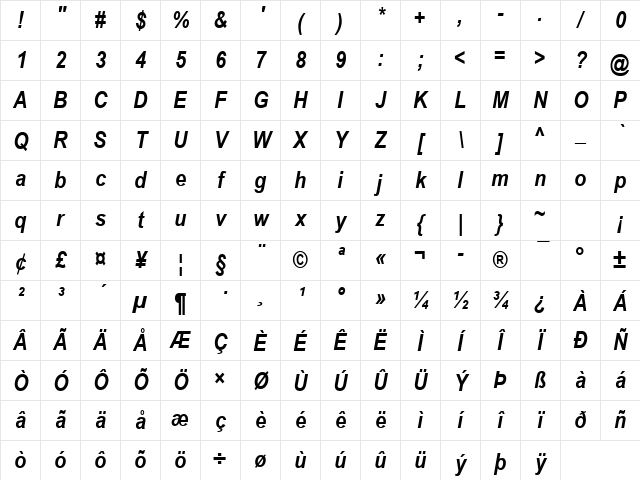
Complete Arial Narrow Bold Italic glyph index. Displaying only characters natively supported by Arial Narrow Bold Italic font.
Arial Narrow is a composed and adaptable typeface that performs quietly and consistently across a wide range of design contexts. The slanted form adds forward momentum and visual energy. Its bold stroke weight gives it real presence on the page. Its narrow stance lets it pack a punch even in space-constrained designs.
Pro Tip: Use Arial Narrow for emphasis, pull quotes, and subheadings where its slanted energy can add rhythm to the layout.